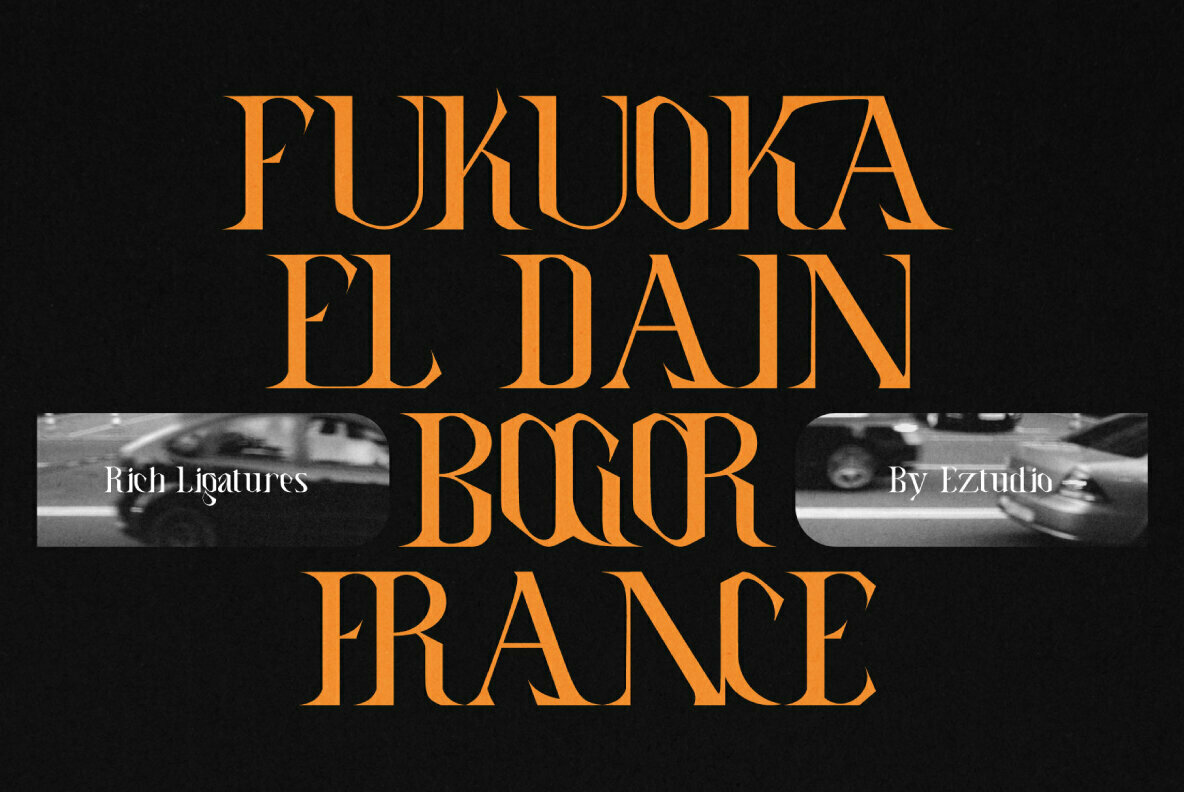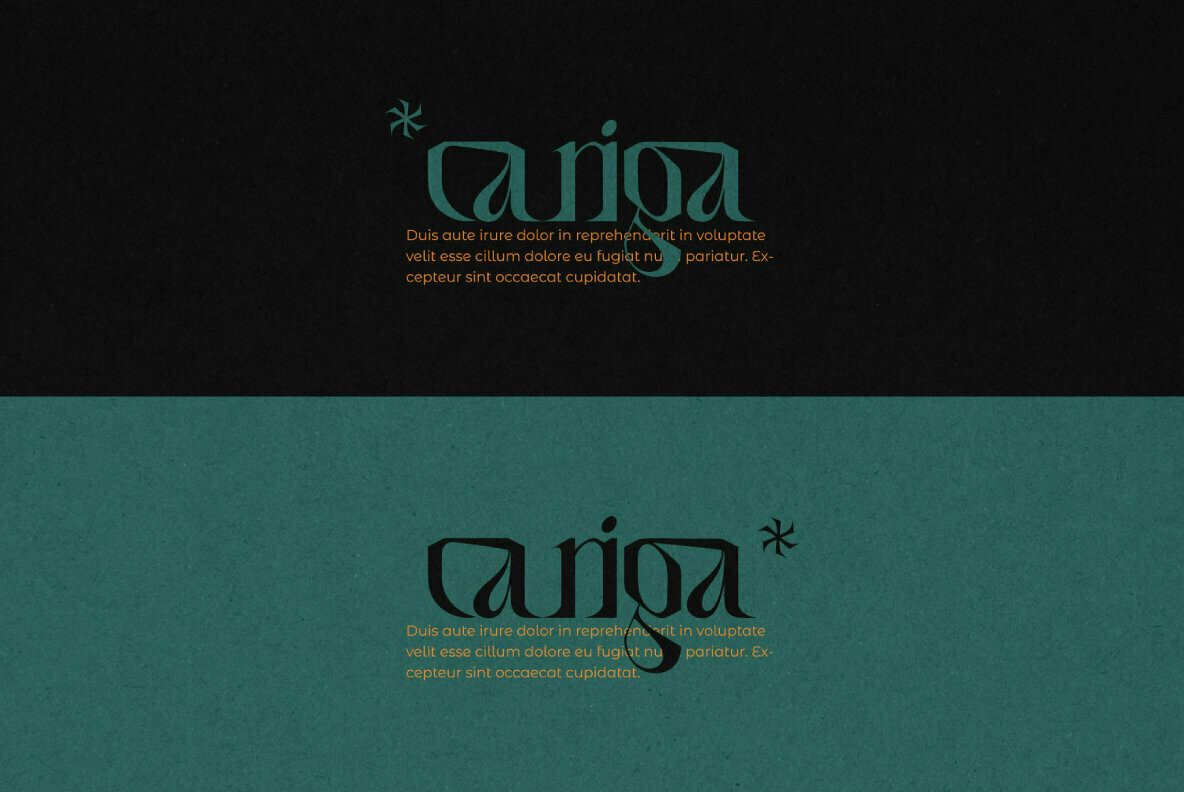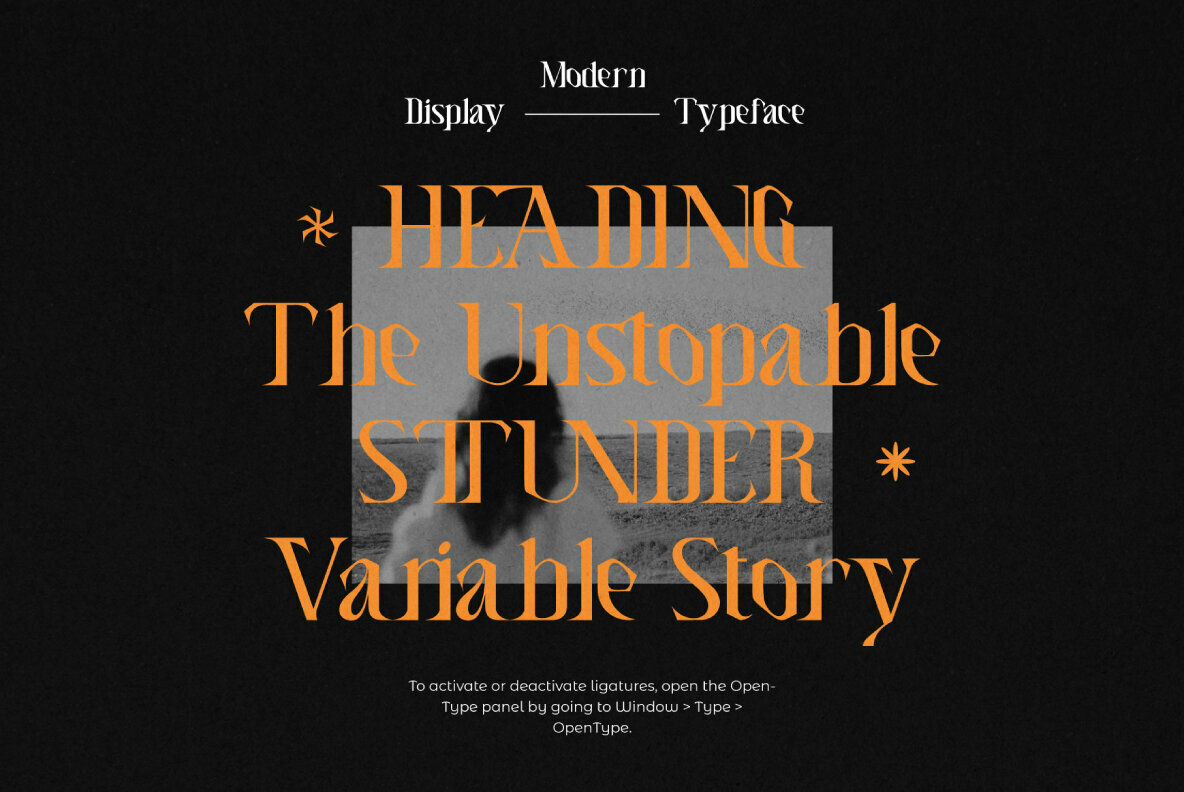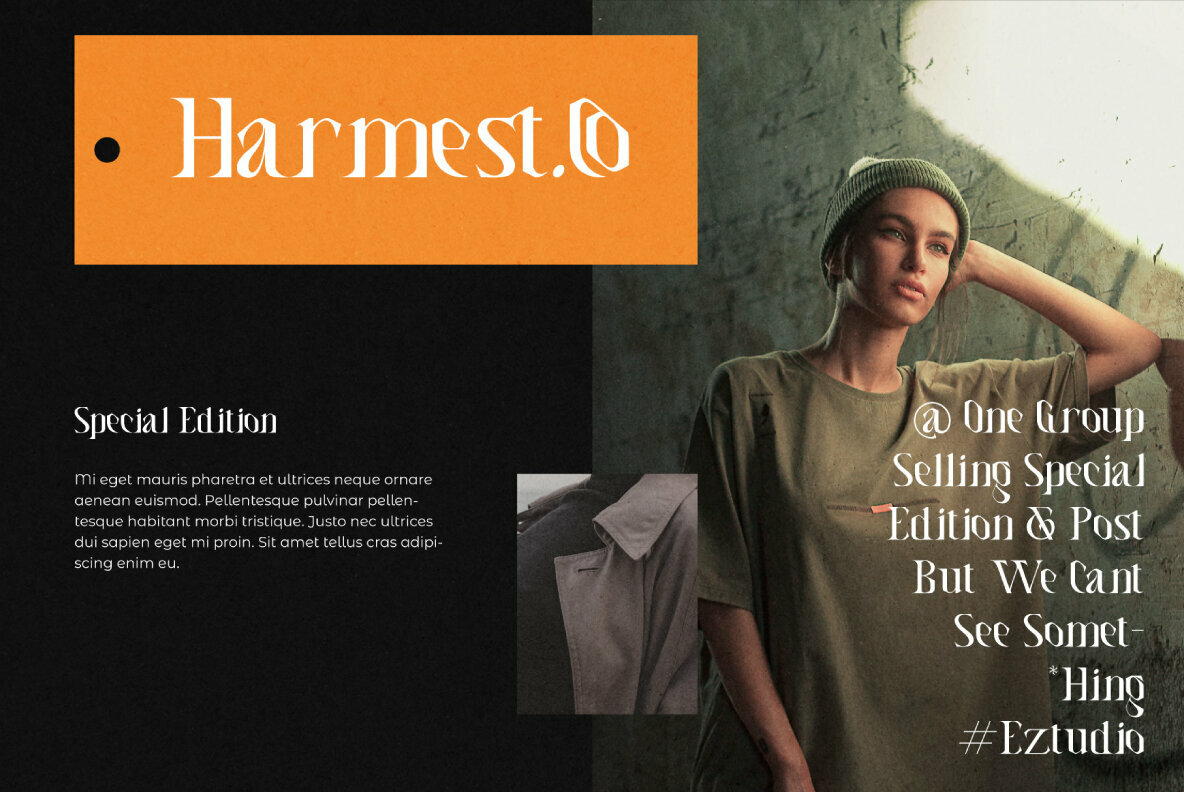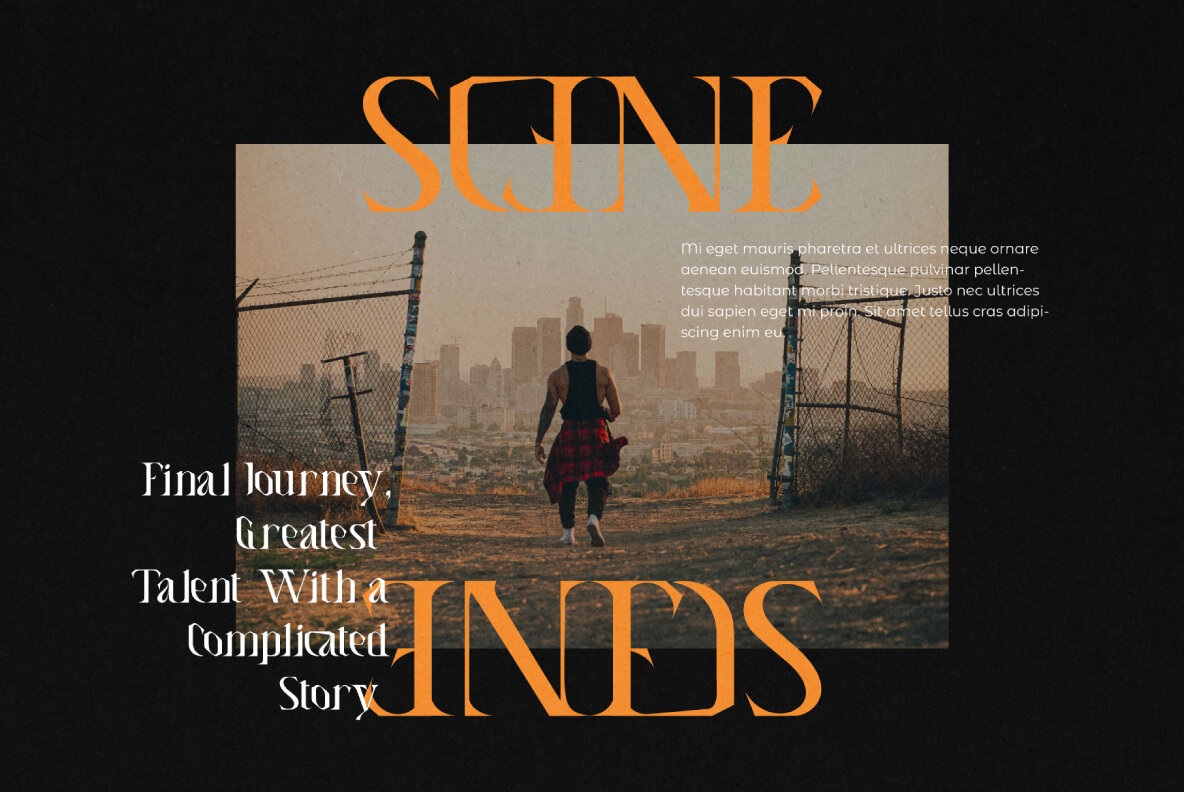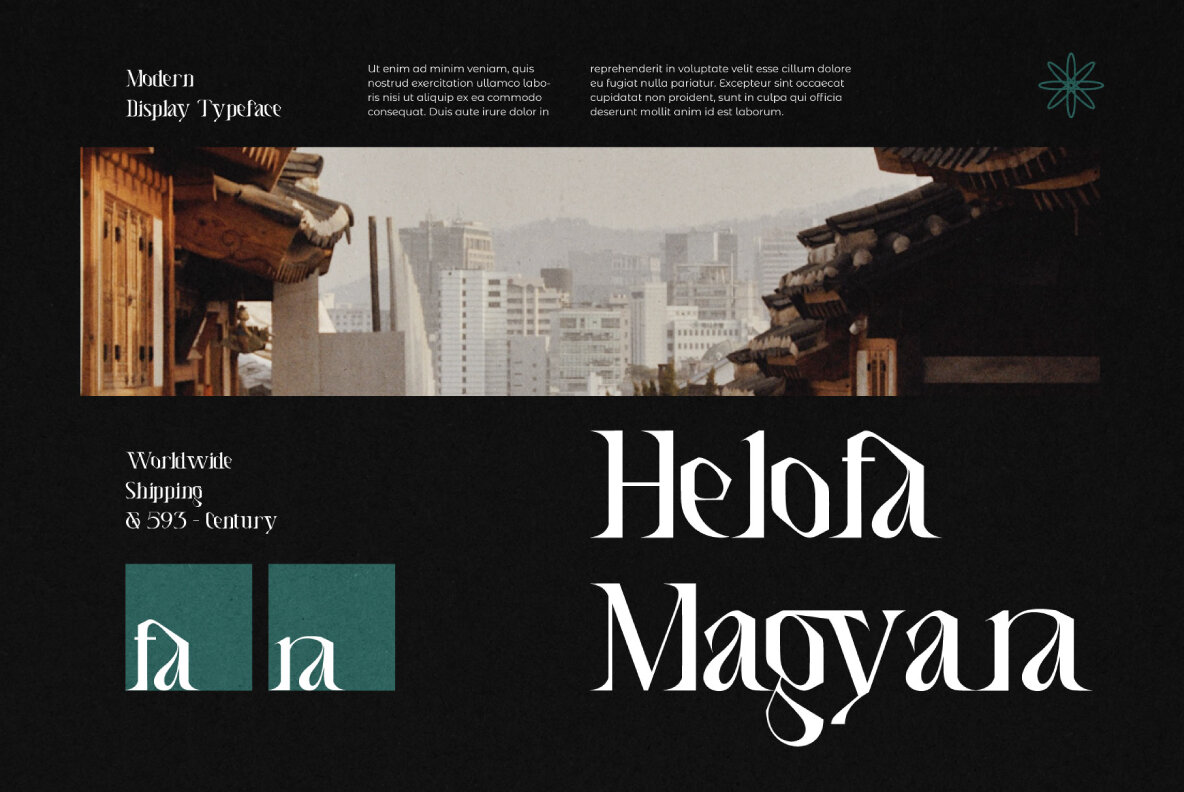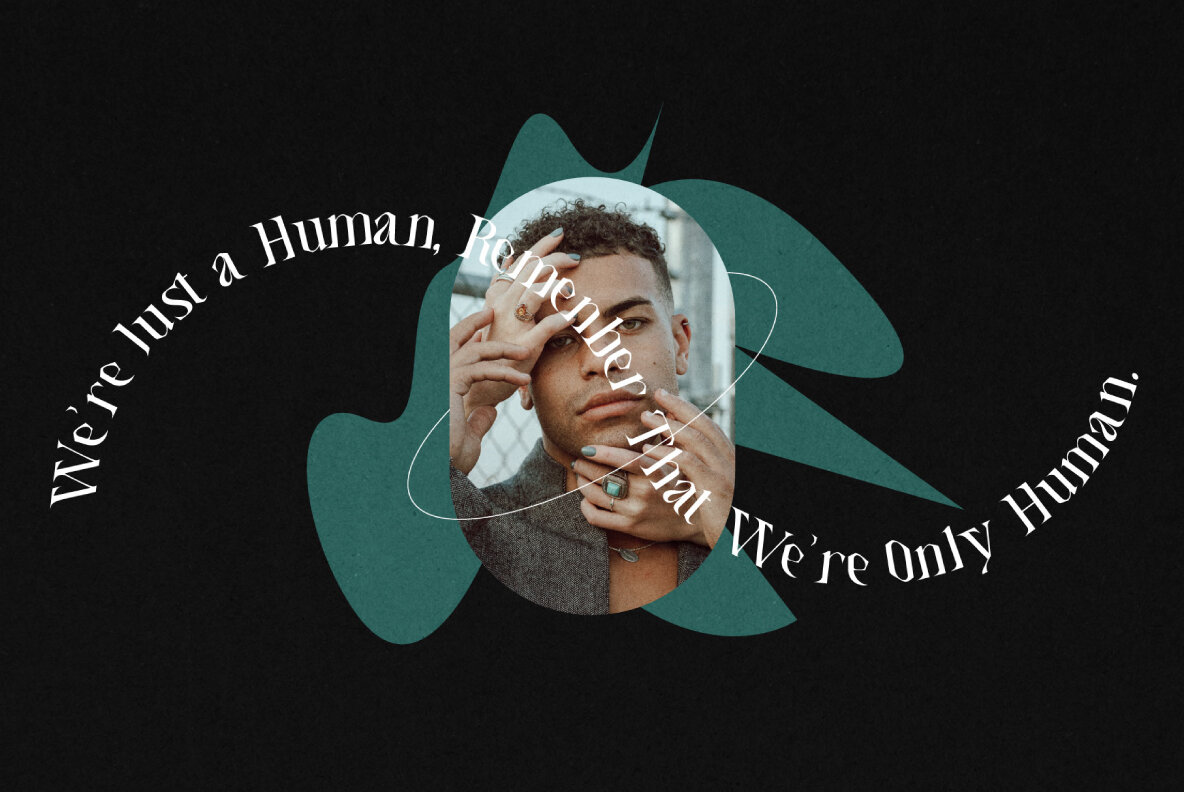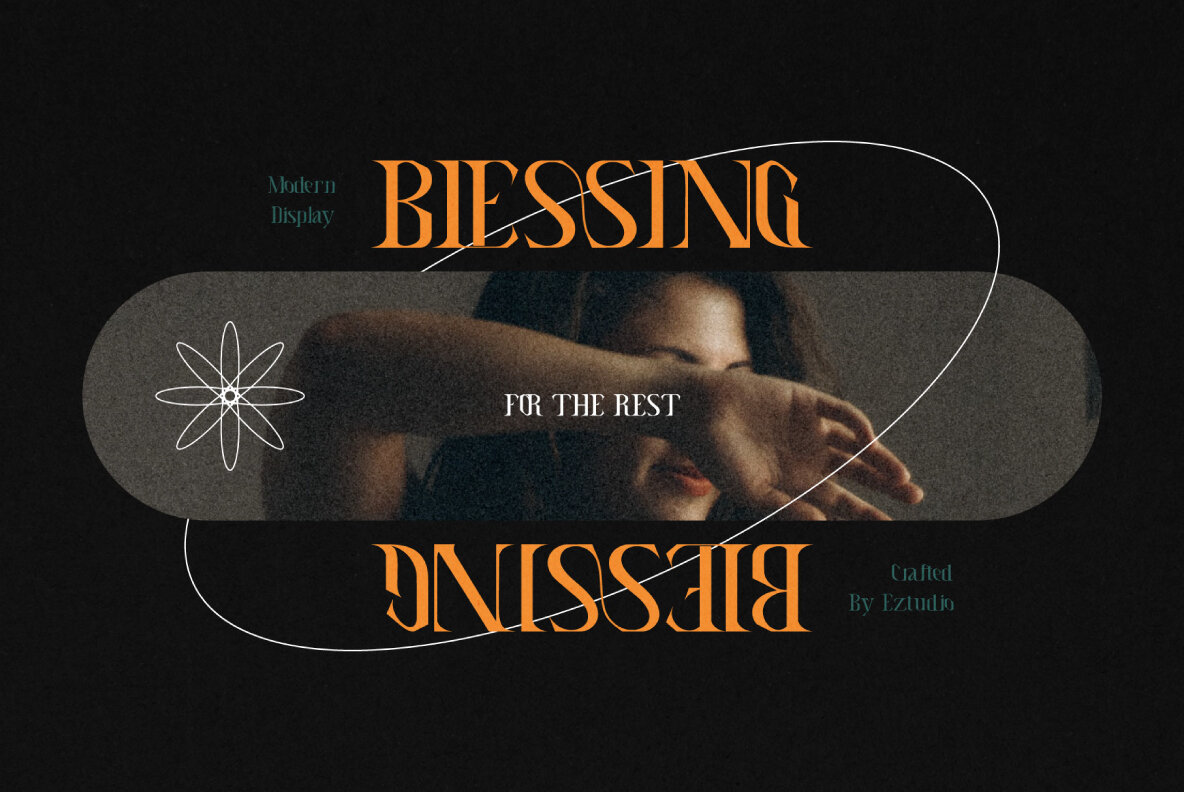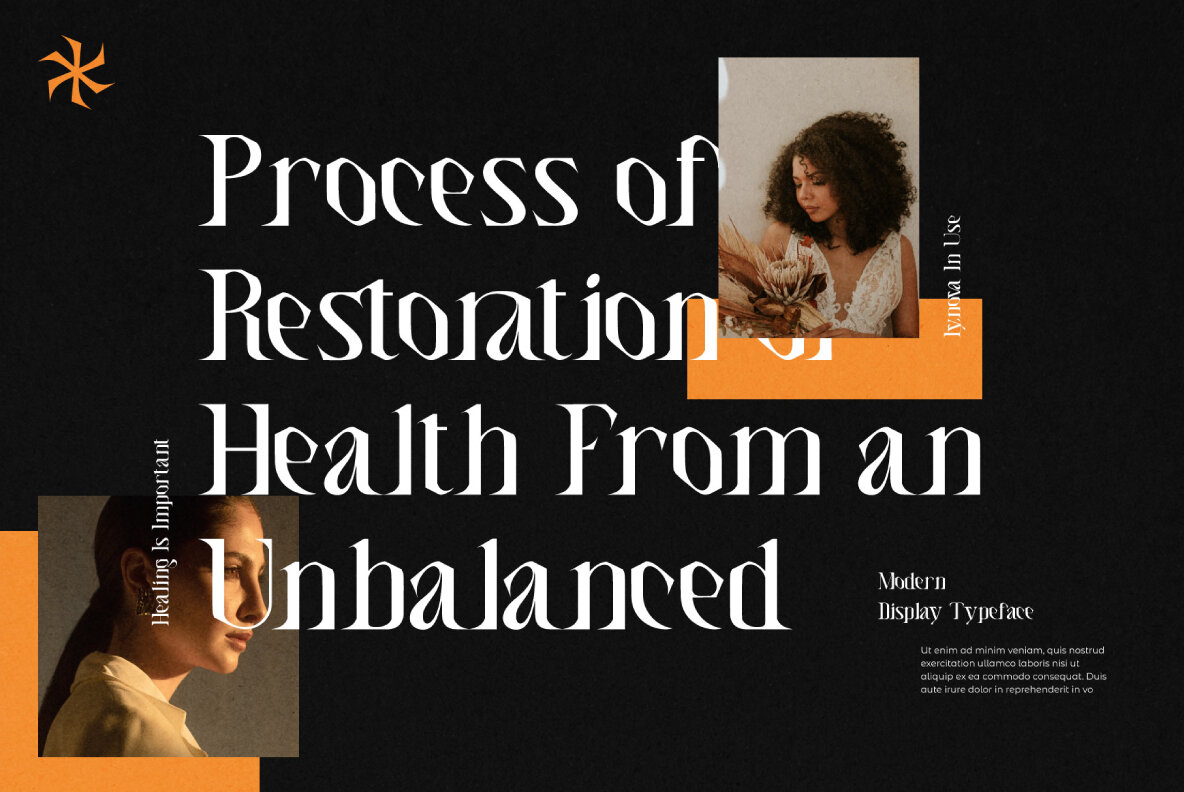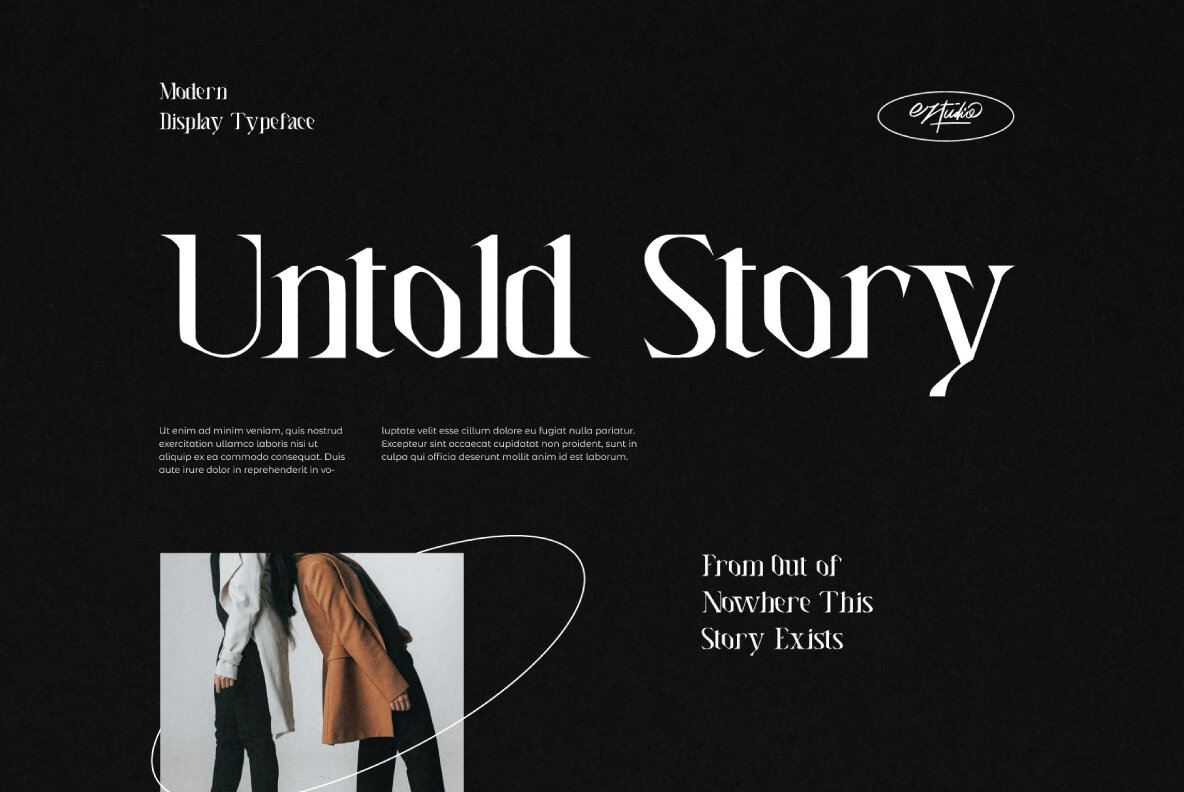
Lynova Font
Lynova Regular
Lynova is a uniquely designed and detailed display font. It is ideal for posters, labels, branding and so much more. Add it confidently to your favourite creations and let yourself be amazed by the outcome generated.